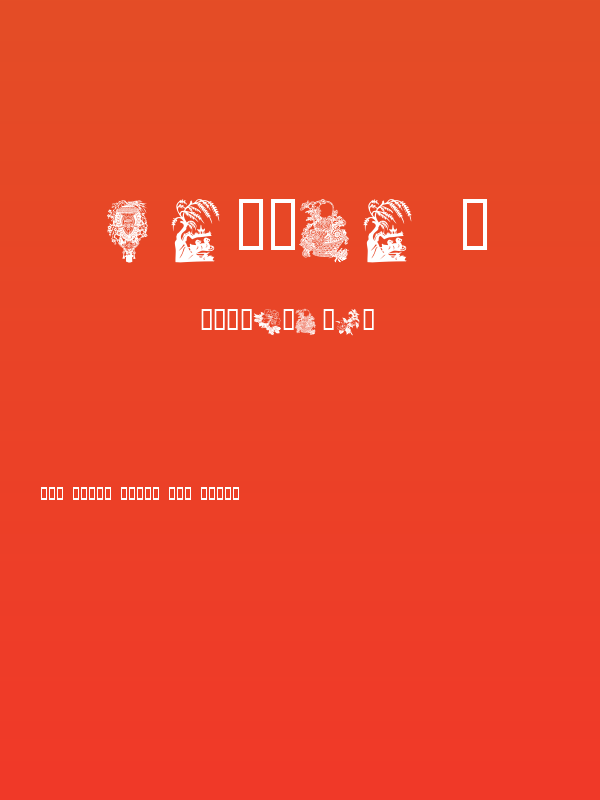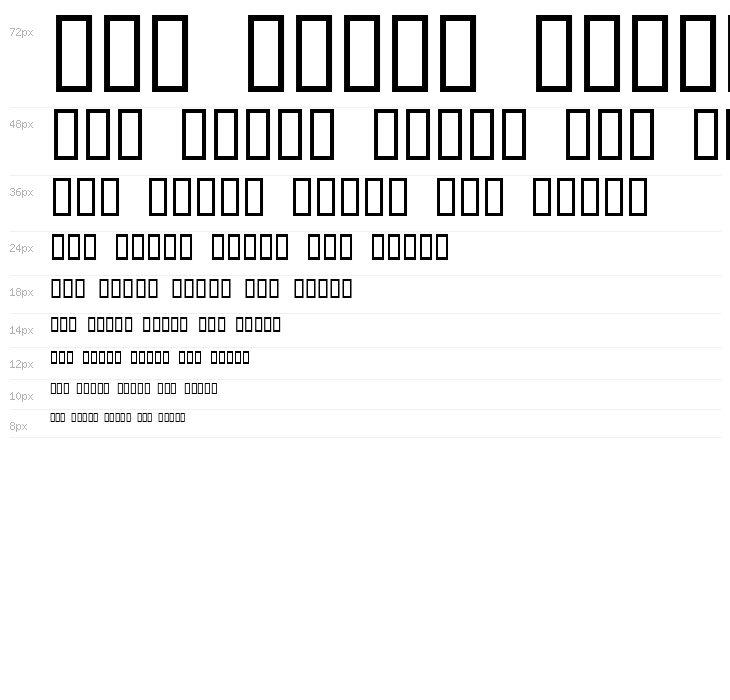
Floral 2 Font
Floral 2 Description
This decorative typeface features intricate floral designs integrated into each character, creating a unique and artistic appearance. The letters are adorned with detailed botanical elements, making them stand out as individual works of art. The font's ornamental style is reminiscent of vintage botanical illustrations, offering a sense of elegance and sophistication. The floral motifs are seamlessly woven into the structure of each letter, providing a harmonious blend of typography and nature-inspired art. This font is ideal for projects that require a touch of nature or an artistic flair, such as invitations, greeting cards, or branding materials that aim to convey a sense of beauty and creativity.
| Use Case | Headlines, Artistic projects, Invitations |
| Proposed Projects | Ideal for invitations, greeting cards, branding materials, and artistic projects requiring a nature-inspired or elegant touch. |